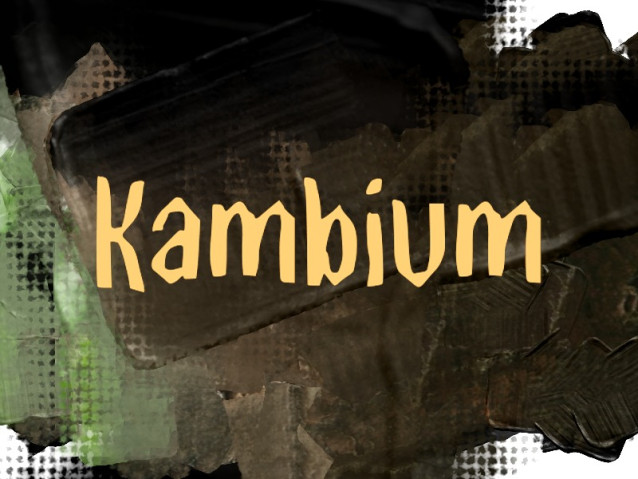
Kambium Font
Kambium Font is a simple and modern display font suitable for quotes, logos, headings, titles, and many more. Use it on any of your creative projects, and your designs will become outstanding!